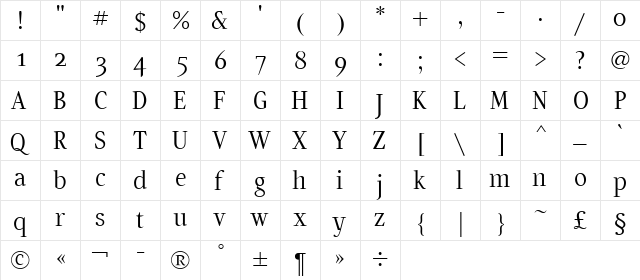
Artemius SN Light TT Regular
Design Context for Artemius SN Light TT Typeface
Artemius SN Light TT is a composed and adaptable typeface that performs quietly and consistently across a wide range of design contexts. Its slender proportions lend an understated elegance to any composition.